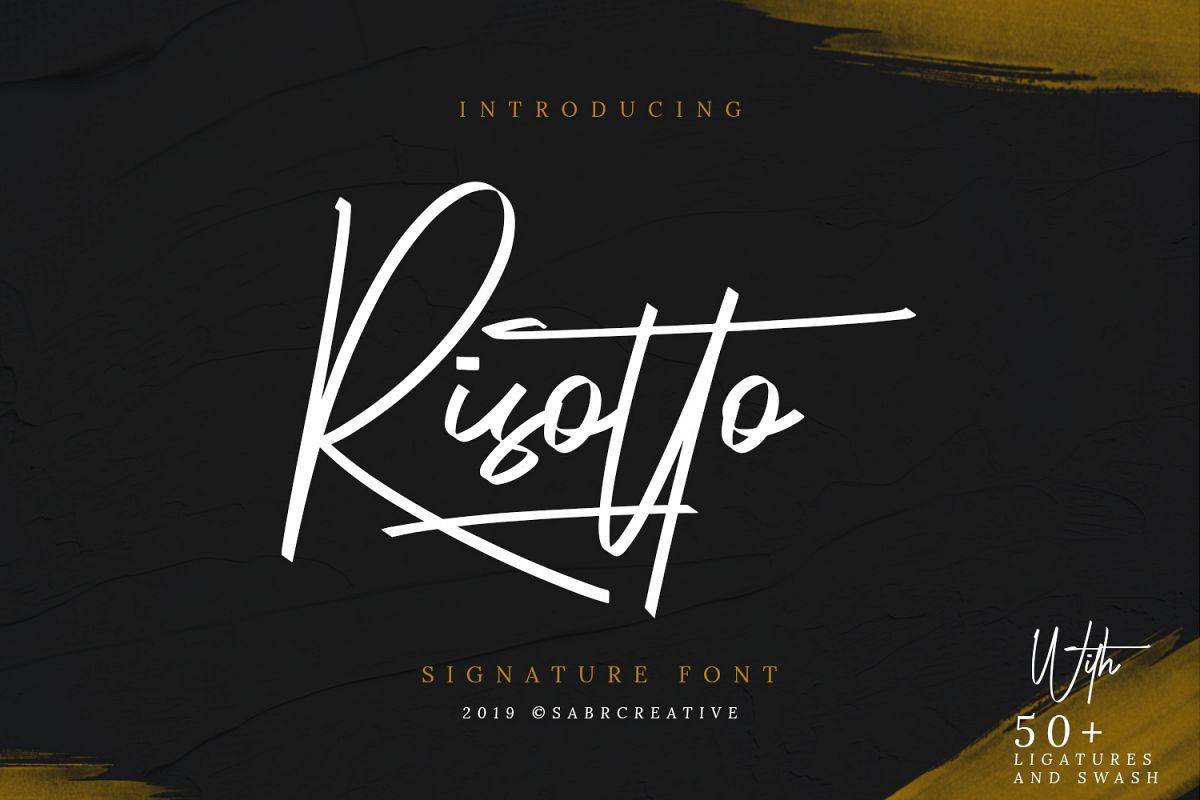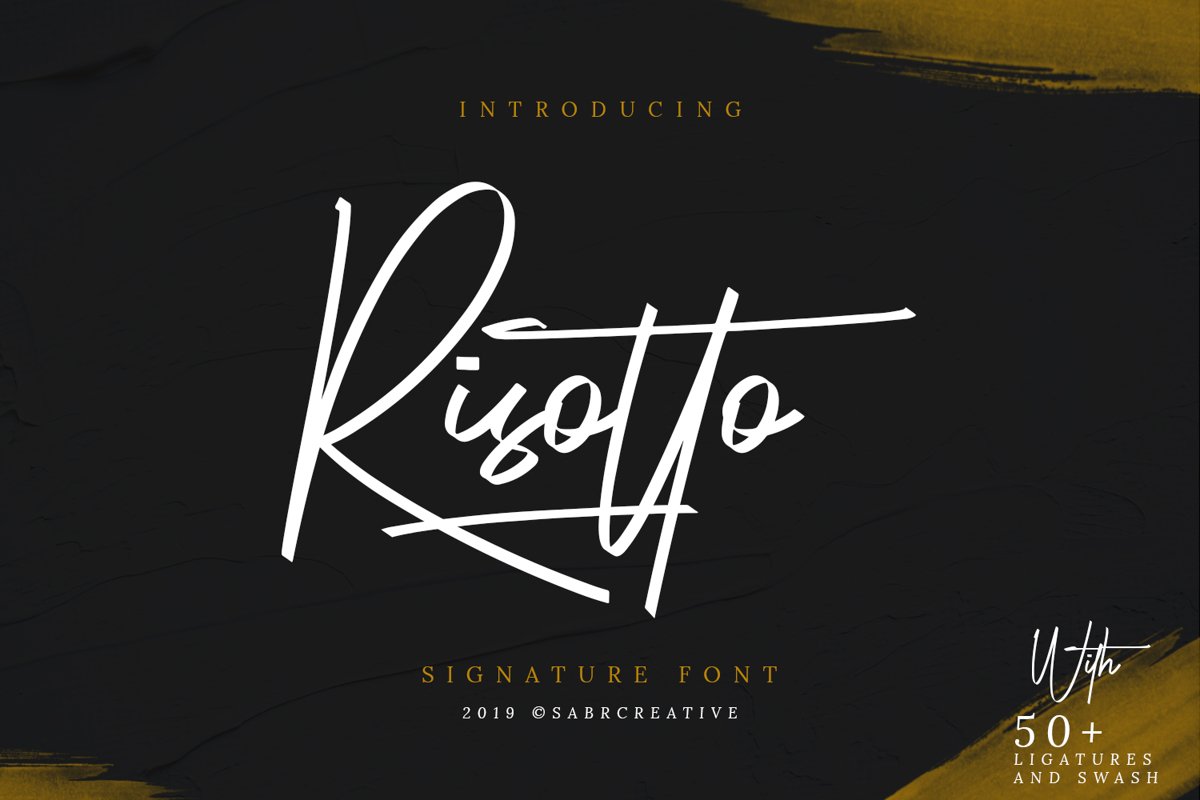
Risotto Signature
Risotto Swash
Risotto Signature Font
Risotto Signature with natural handwriting style perfect for
many different projects such as logos & branding, invitation,
stationery, wedding designs, social media posts, advertisements, product
packaging, poster, product designs, label, photography, watermark, special
events or anything, quotes, fashion, etc.